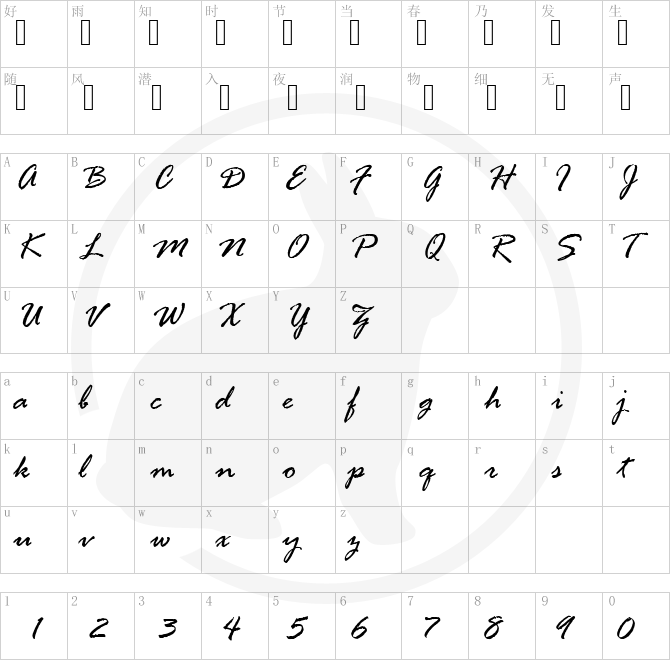
- Font Name:RageJoiD
RageJoiD.ttf is a very beautiful artistic font, RageJoiD.ttf is widely used in the design and printing of various books and pictures,RageJoiD.ttf has a strong visual impact,RageJoiD.ttf is a commonly used font in newspapers, magazines and books, and is used in posters, e-commerce Poster design, store design, logo design, font design and other fields.RageJoiD.